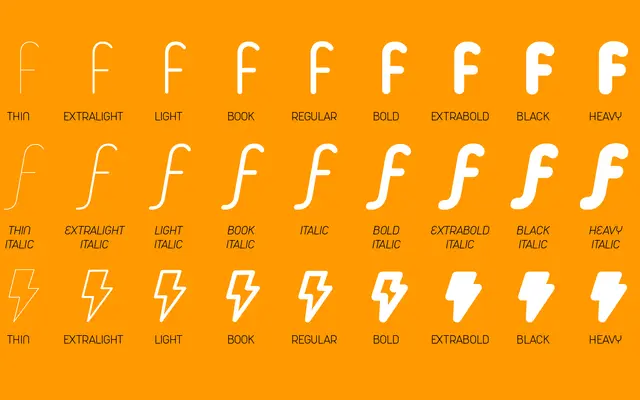
Duepuntozero
A monolinear geometric sans with rounded corners and condensed proportions, originally conceived as a logo typeface in 2004 and fully expanded in 2019 to cover Latin, Greek and Cyrillic across nine weights with matching italics and variable fonts.
Originally created as a companion to the rounded display family Arista, Duepuntozero was rebuilt in 2019 as a fully featured pro family with nine weights from Thin to Heavy, each with italics, plus two variable font files. The strictly modular, monolinear construction and compact proportions suit mobile interface and app design, where the condensed forms save screen space without sacrificing legibility. A matching icon set across the same nine weights is included to support consistent branding across infographics and digital products.
A monolinear geometric sans with strictly modular construction and rounded corners; its condensed proportions and uniform stroke weight place it firmly in the geometric sans category.